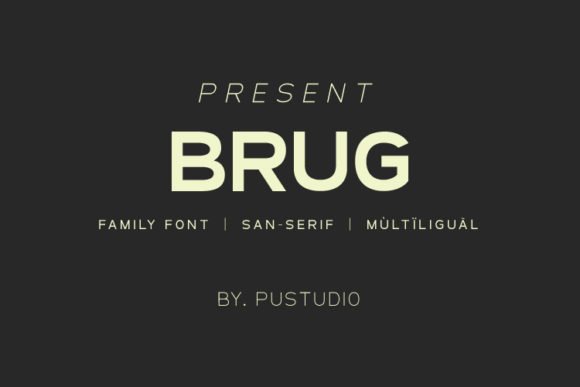
Discover the Power of Brug Font
Have you ever been stuck in a design rut, staring at a blank canvas with no idea where to start? You know, that frustrating moment when your creative juices just aren’t flowing? For many designers, this is a familiar feeling. But what if I told you there’s a font that can help break the silence and bring your ideas to life?
Enter Brug Font, a daring and simple sans serif font that’s perfect for a wide range of projects. Whether you’re designing a logo, a brochure, or a website, Brug Font is the perfect companion to help you make your mark. Its clean lines and modern feel make it a valuable asset for any designer looking to add some edge to their work.
With Brug Font, the possibilities are endless. Add it to your creative arsenal and watch your designs come alive with a fresh new look that’s sure to stand out.
Brug Font Key Features
- Font Family: Brug is a sans-serif font family designed to be highly legible and versatile.
- Font Sizes: Brug is available in multiple weights, ranging from Extra Light (100) to Extra Bold (800).
- Unique Characteristics: Brug features a distinctive rounded corner design, making it highly readable in both digital and print formats.
Brug Font Review
Brug Font is a sans-serif typeface that caught my attention with its clean lines and geometric structure. I was excited to explore this font and see if it lives up to its promising design.
The Brug Font’s x-height is quite high, which makes it perfect for body text and titles. The font feels airy and spacious.
The geometric structure of the font gives it a modern and sleek feel, perfect for contemporary designs.
The font is highly legible, even at small sizes, making it ideal for digital displays.
The font lacks personality and character, which might make it difficult to stand out in a crowded design landscape.
The font is not ideal for use in situations where a more traditional or serif font is required.
Overall, I think Brug Font is a solid choice for modern designs where a clean and simple aesthetic is desired. However, it may not be the best option for projects that require a more unique or traditional font. With its high x-height and geometric structure, Brug Font is perfect for body text and titles, but it falls short in terms of personality and character.
Getting the Most Out of Brug Font
For optimal results, use Brug Font in combination with bold or italic styles to create visual contrast.
Experiment with different font sizes and line heights to achieve a balanced look.
Brug Font is ideal for:
- Editorial and publishing content
- Website and app interfaces